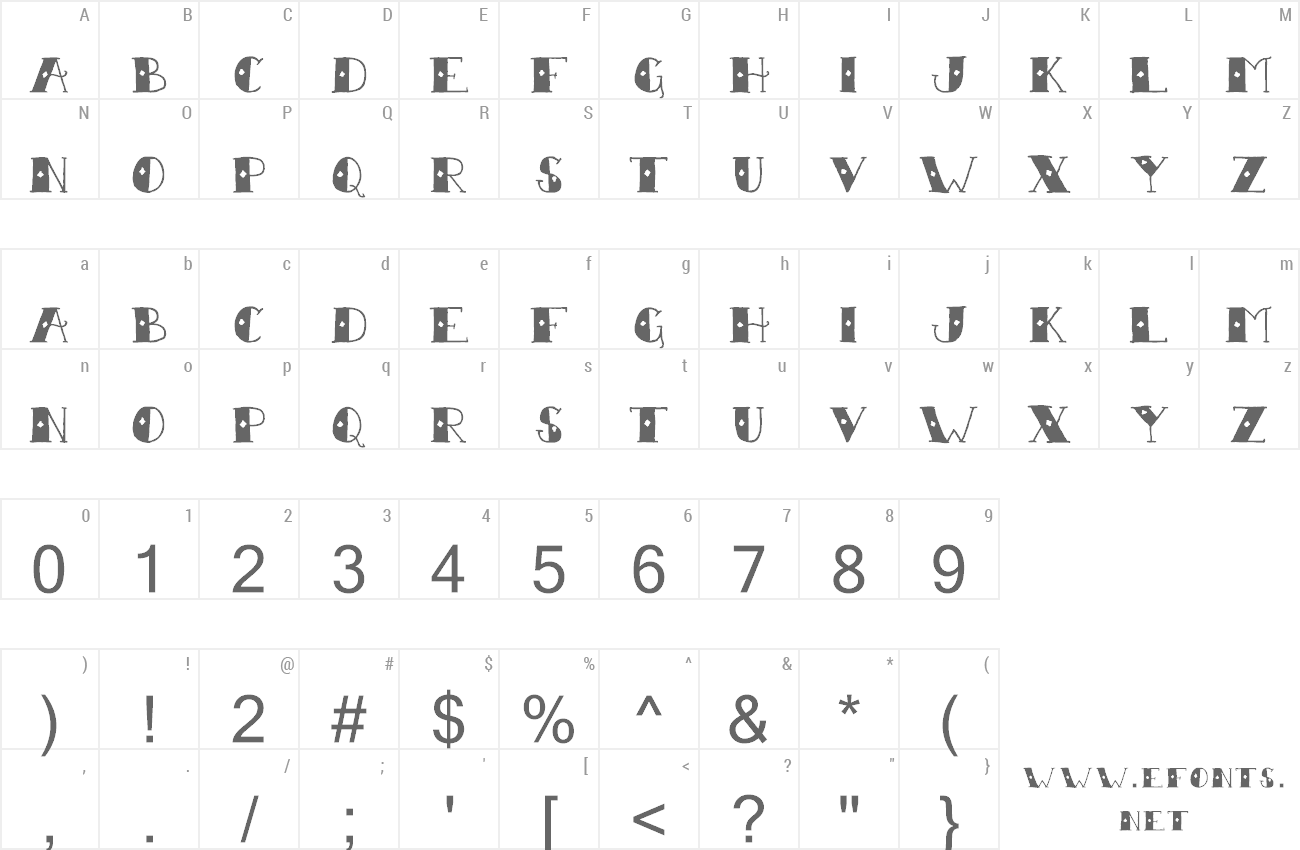
| Font name: | Sailor Scrawl |
| Author: | Out of Step Font Company |
| Note by Out of Step Font Company | |
| This is a wonderful hand-drawn nautical sailor's tattoo font, one of three Sailor Scrawl fonts. Each character features a white diamond on a black background. Perfect for tattoo flash projects, one of three Sailor Scrawl fonts! |